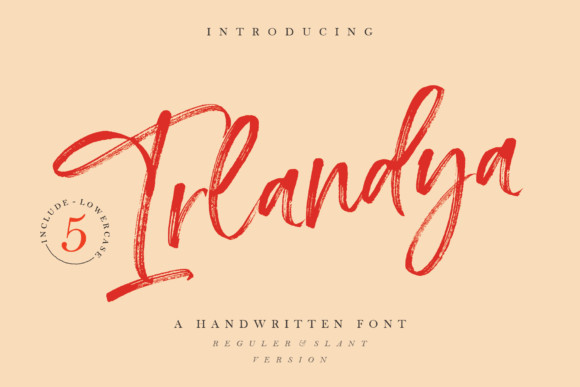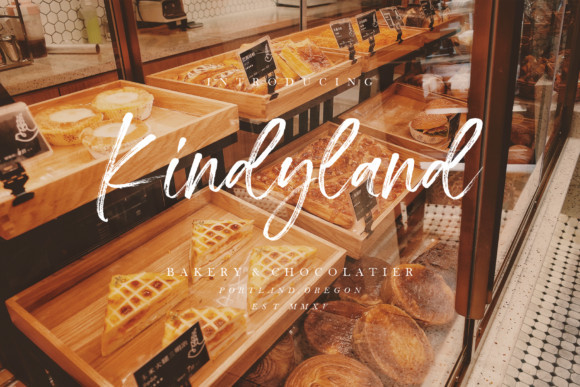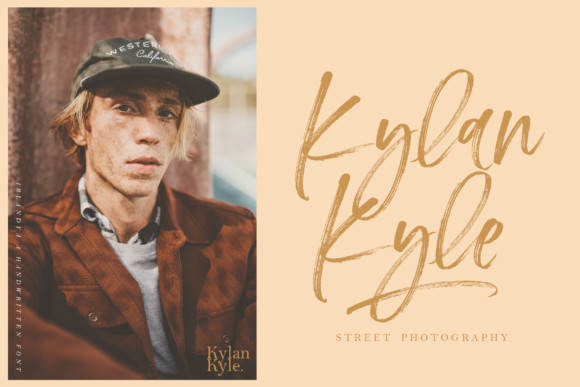
Irlandya Font
Irlandya is a modern handwritten font made in a brush style. It can be used for various projects such as invitations, stationery, social media, logos, weddings, branding, graphic design, and more.